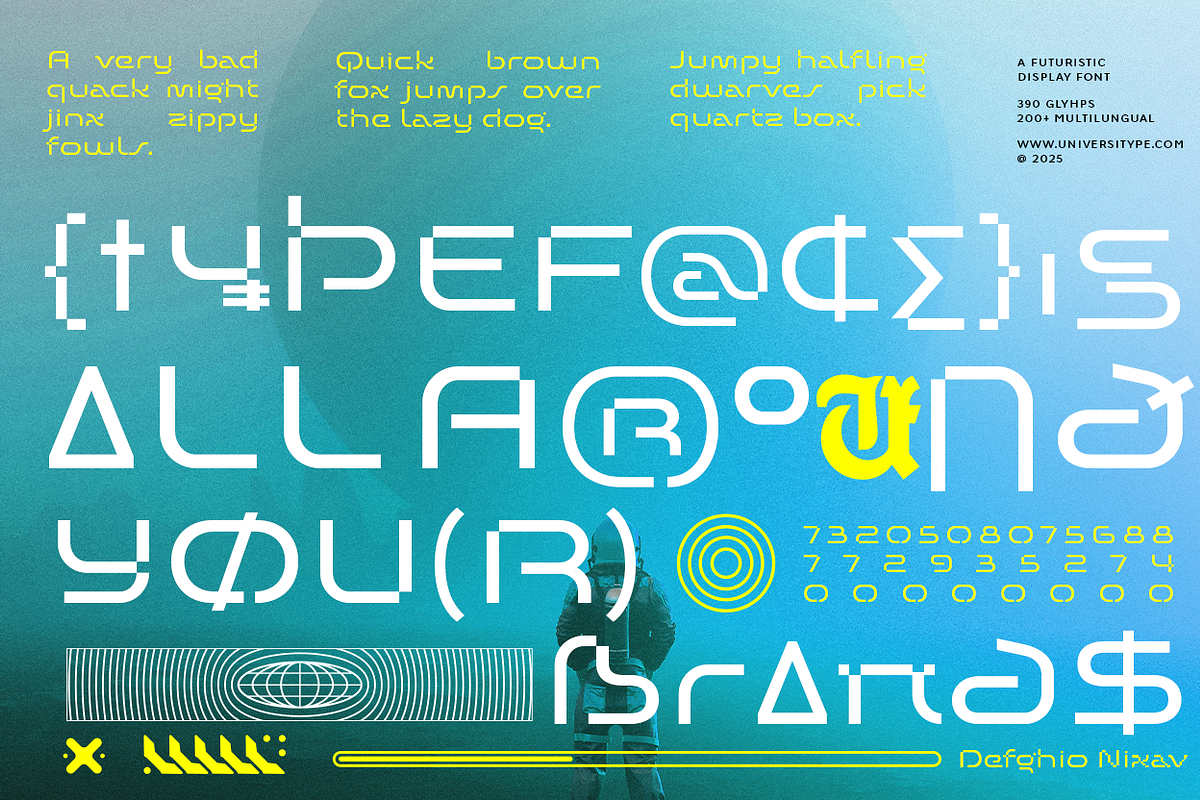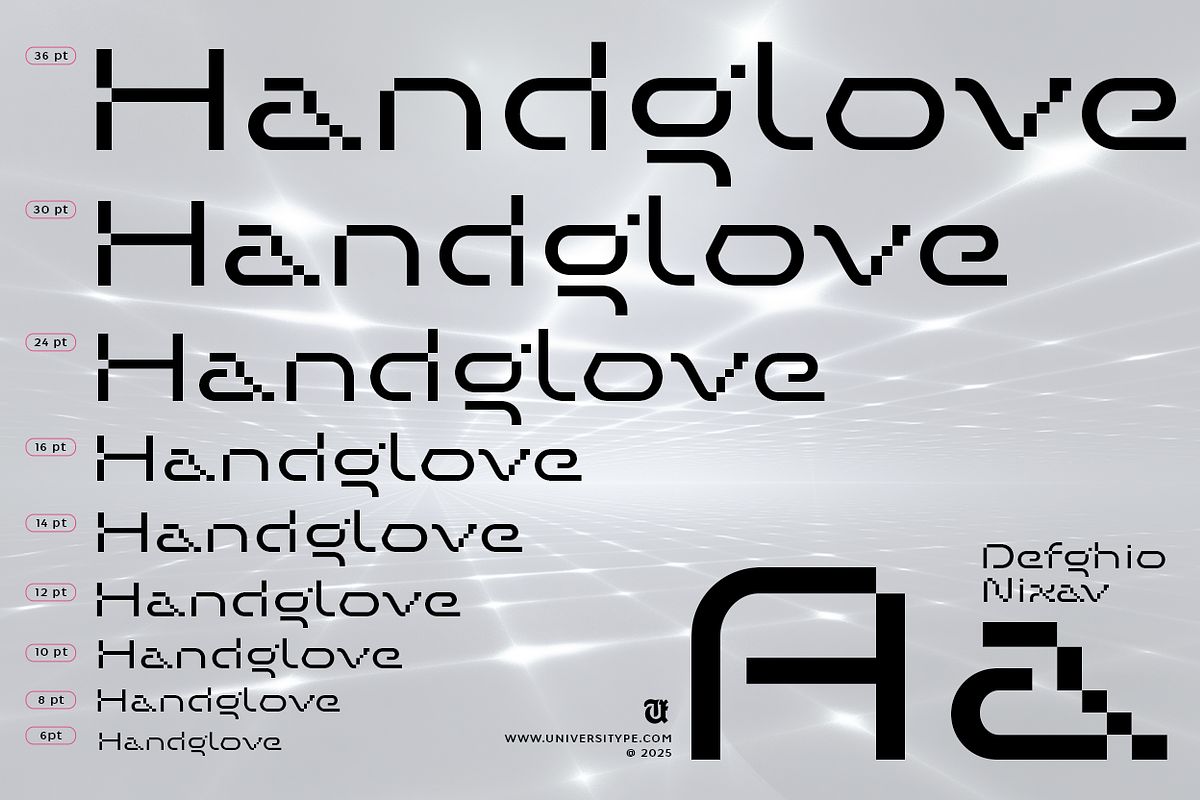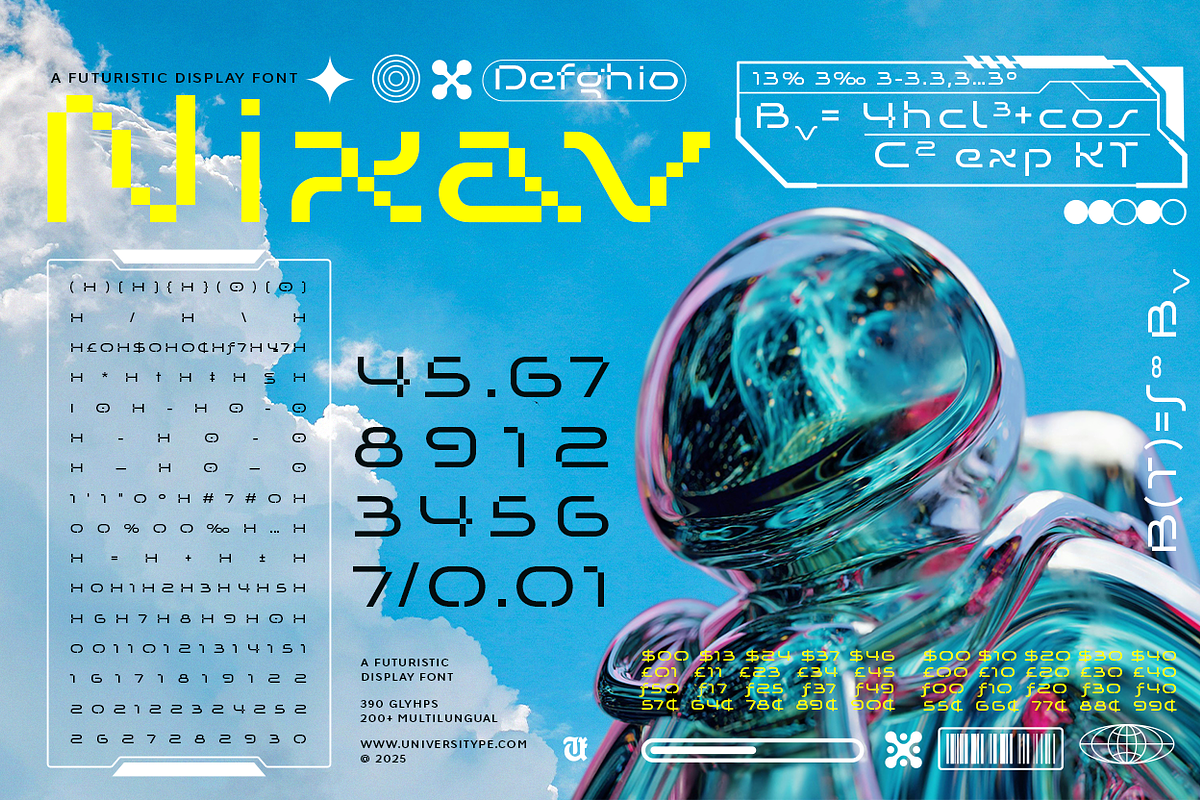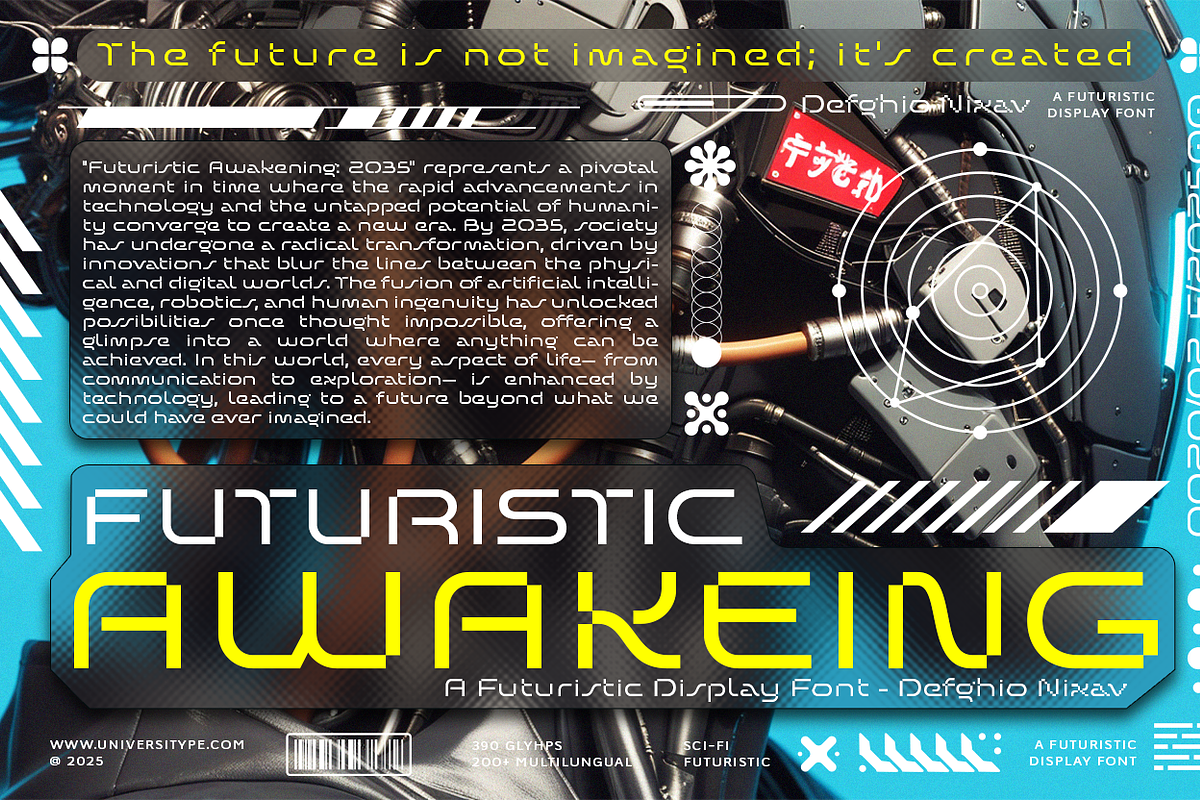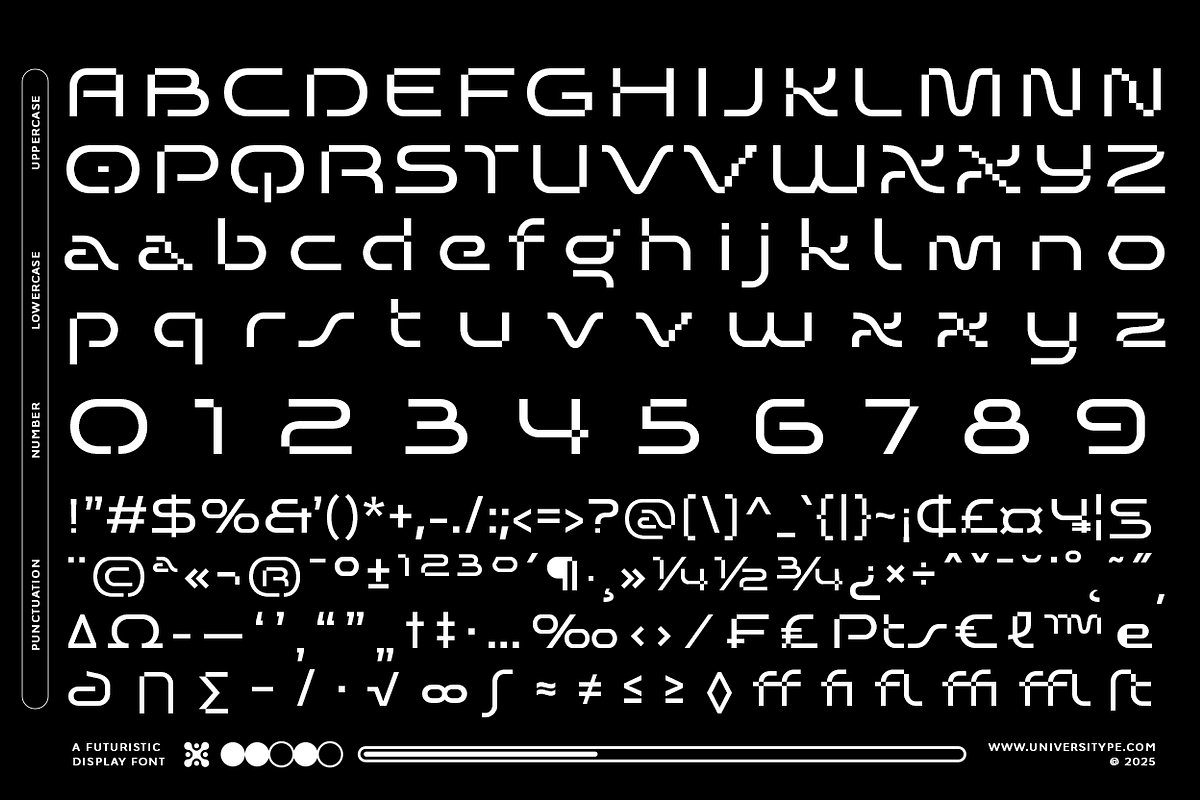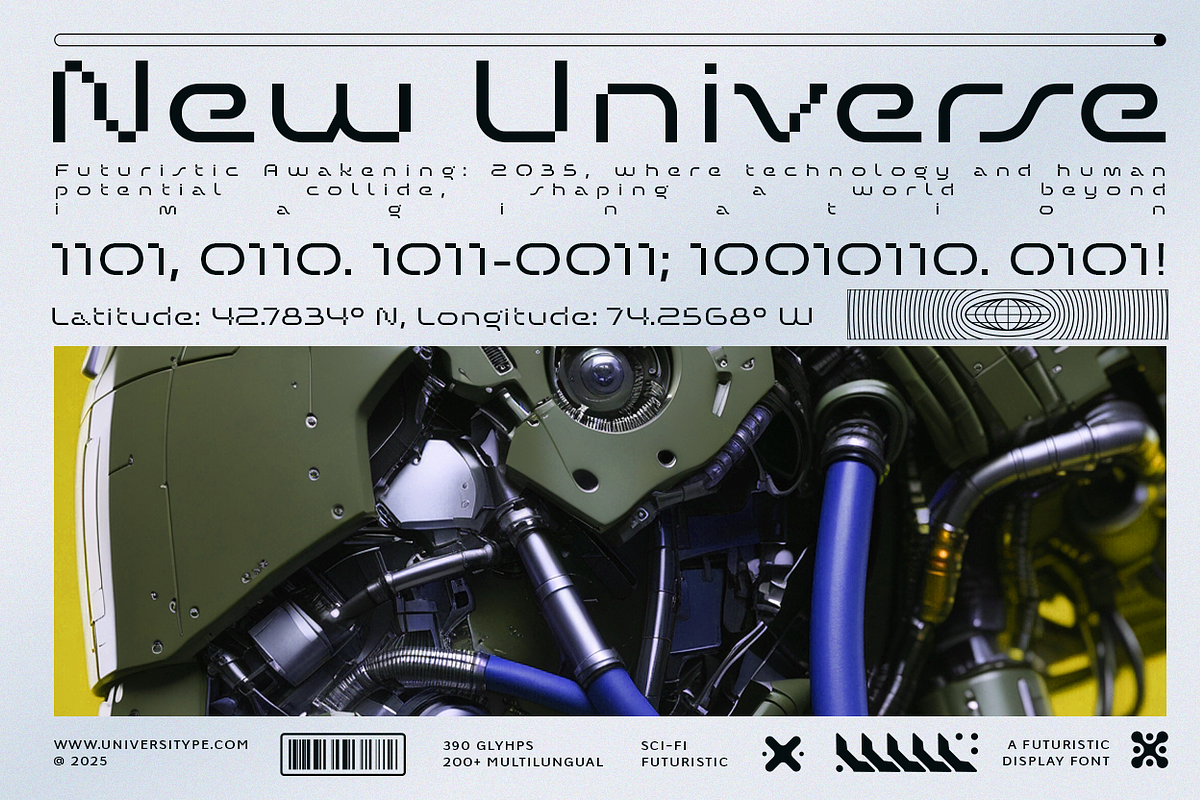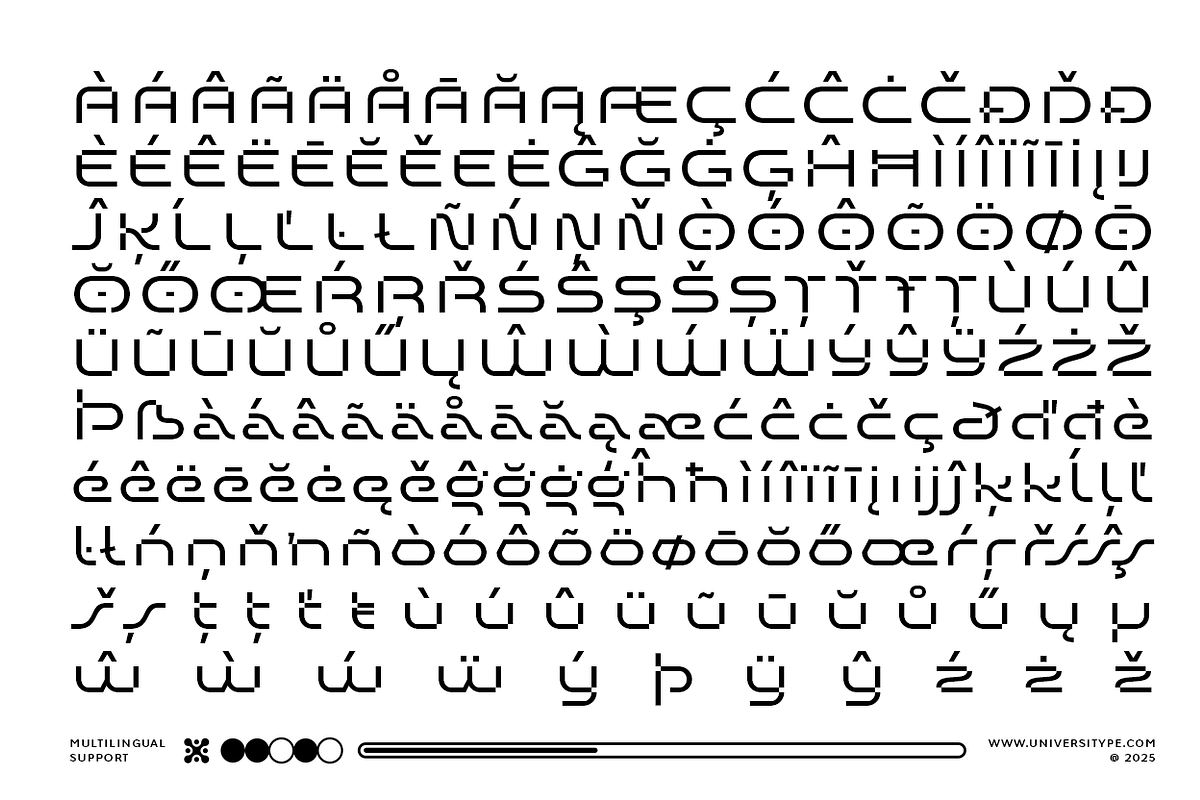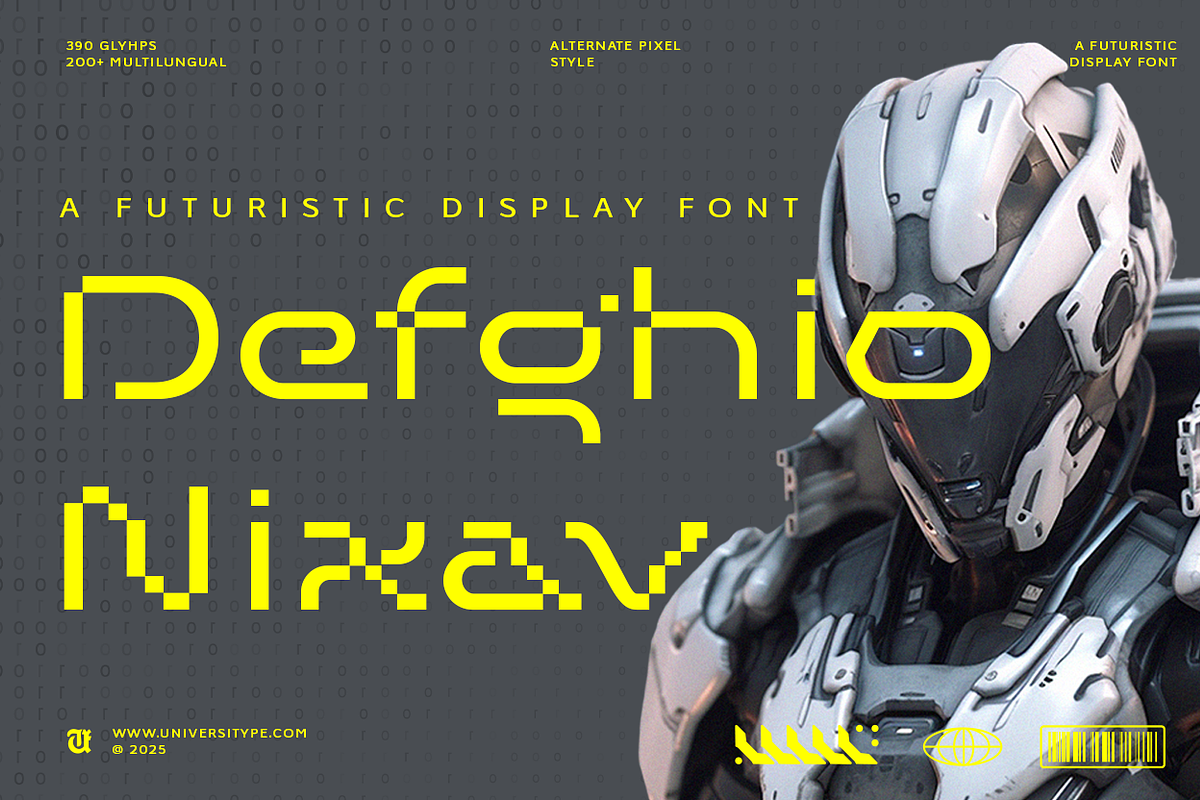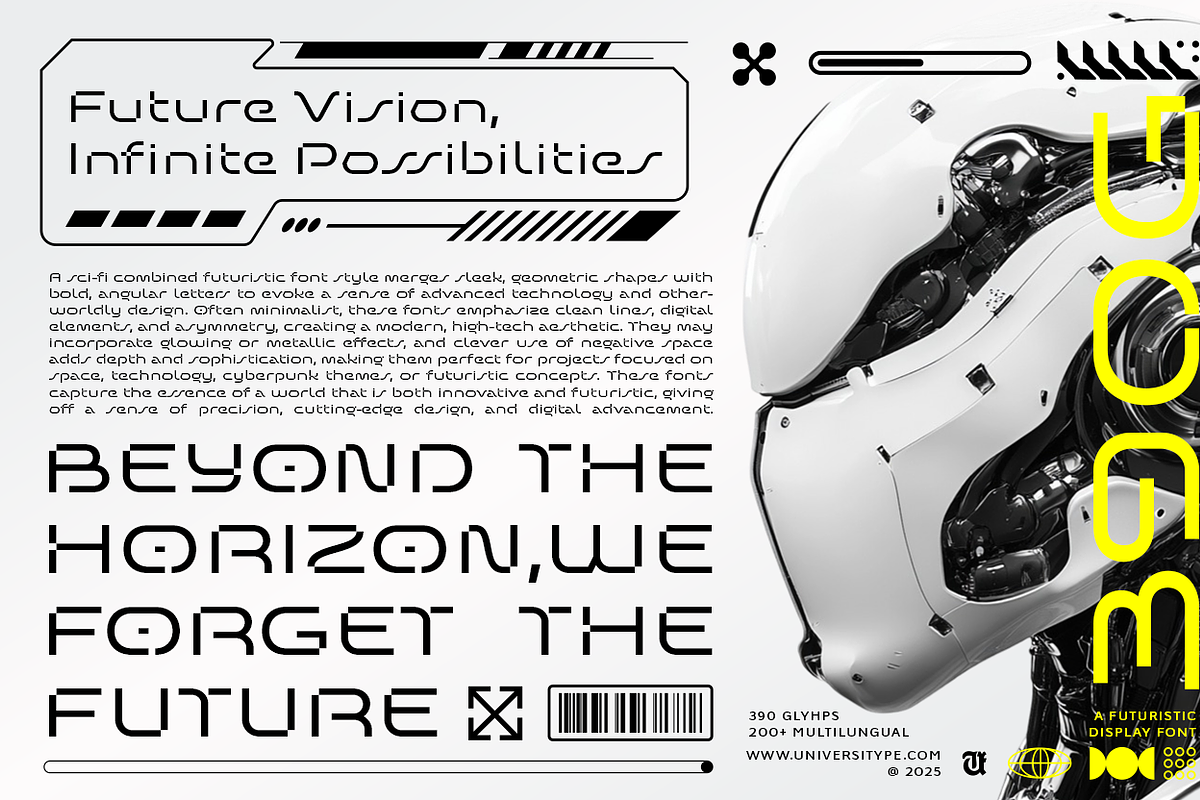
UT Defghio Nixav : A Futuristic Font
Product Description:
UT Defghio Nixav is a cutting-edge futuristic display font designed to elevate projects with its bold, angular geometry and sleek, minimalist aesthetic. Merging advanced technology with otherworldly design, this font captures the essence of innovation, precision, and digital advancement. Perfect for visionary concepts, it blends glowing metallic effects, asymmetry, and clever negative space to create depth and sophistication.
Target Audience:
Ideal for tech startups, sci-fi enthusiasts, game developers, digital artists, and modern brands seeking to convey innovation. Perfect for projects in space exploration, cyberpunk themes, AI-driven interfaces, and futuristic concepts.
- 390 Glyphs: Extensive character set for diverse typographic needs.
- 200+ Multilingual Support: Covers a wide range of languages for global accessibility.
- Alternate Pixel Style: Unique pixelated variants for digital or retro-futuristic aesthetics.
- Sleek Geometry: Clean lines, bold angles, and minimalist forms for a high-tech look.
- Asymmetry & Negative Space: Enhances depth and modern sophistication.
Inspiration Behind the Design:
UT Defghio Nixav draws inspiration from the fusion of advanced technology and human ingenuity, envisioning a future where physical and digital worlds converge. The design was influenced by futuristic architecture and sci-fi concepts, emphasizing precision, innovation, and the limitless possibilities of tomorrow.
Usage Suggestions:
- Tech Interfaces: Elevate user experiences with a modern, high-tech aesthetic.
- Sci-Fi & Cyberpunk Projects: Create immersive worlds with futuristic typography.
- Branding & Logos: Establish a forward-thinking identity for innovative brands.
- Digital Art & Posters: Add depth and sophistication to visual storytelling.
- Video Games & Films: Enhance futuristic settings with authentic, tech-inspired fonts.
UT Defghio Nixav is more than a font—it’s a gateway to the future. Unlock limitless creative potential and redefine what’s possible in design.